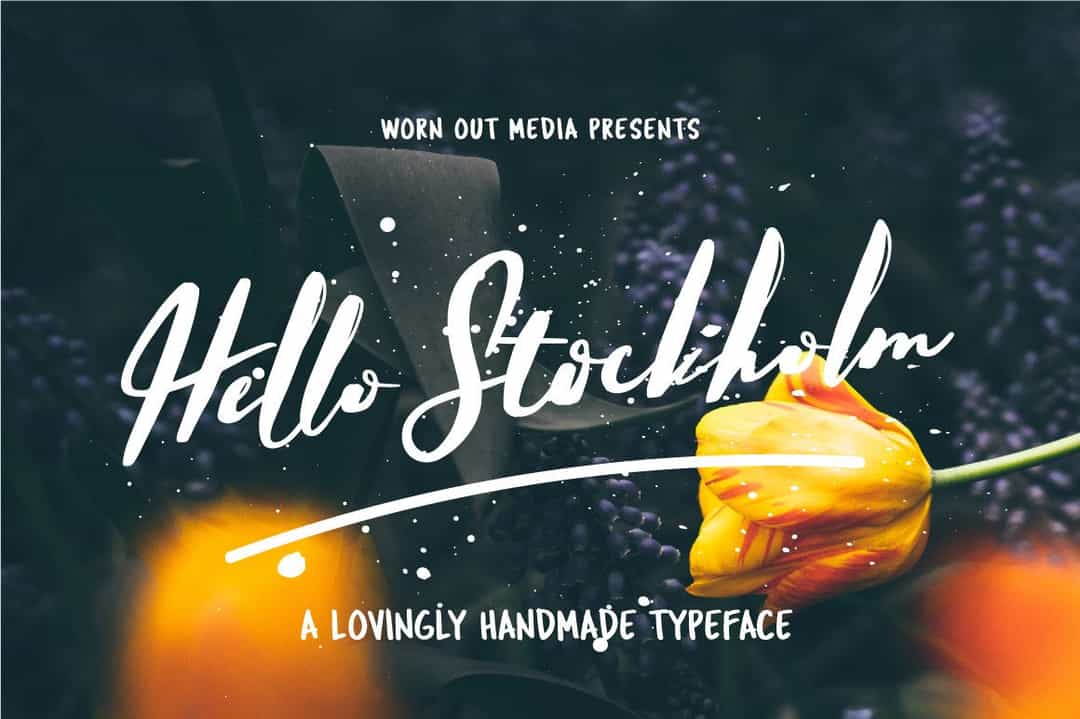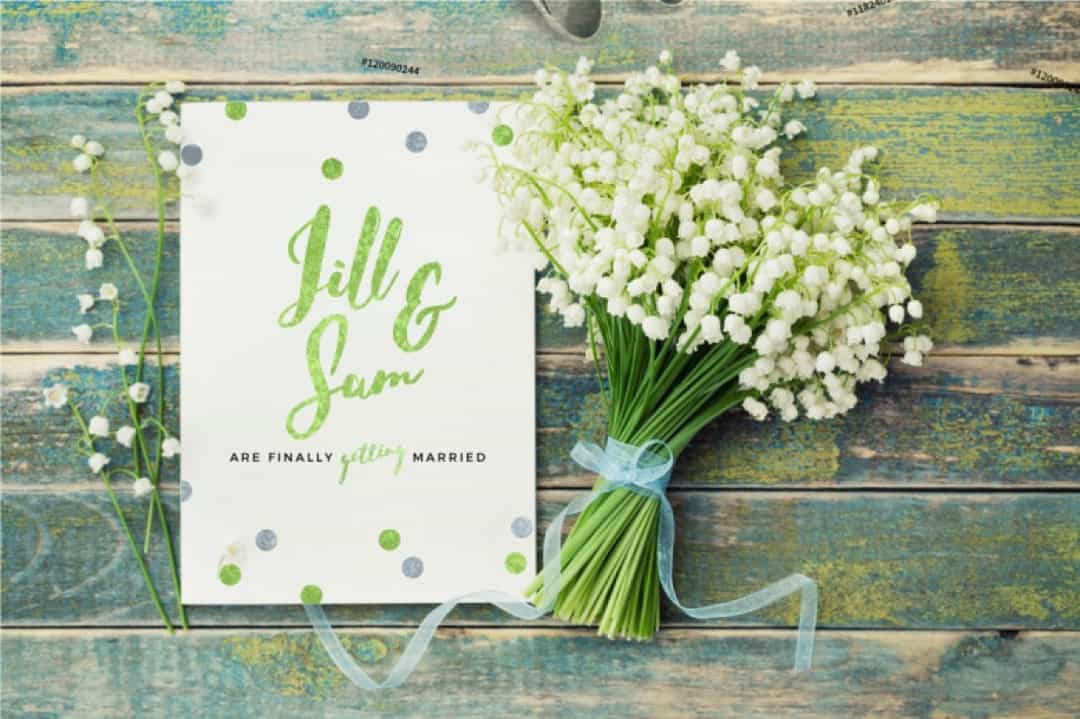
Hello Stockholm is a loving hand crafted typeface for the lovers of creativity and design. This clean, slightly flawed brushed script font feels somewhat fresh and Nordic, and would be great for a marriage invite and a memorable branding logo. Besides, Hi Stockholm can also be employed on street ads, in Instagram pictures, and t-shirts or t-shirt print designs as a genuine touch.